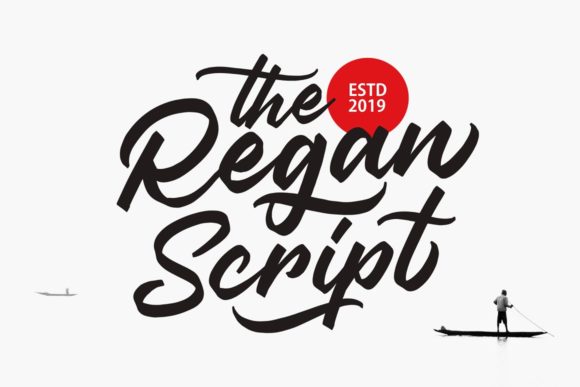
Introducing The Regan Script Font: The Epitome of Individuality and Timeless Charm
Unleash your creative flair and make a lasting impression with The Regan Script Font, a captivating and distinctive handwritten font that exudes a retro charm. Crafted with meticulous attention to detail by the experts at Colative, this font is a testament to the power of individuality and timeless elegance.
With its assertive strokes, elegant curves, and a touch of nostalgia, The Regan Script Font is a versatile masterpiece that effortlessly elevates any design project. Its wide range of applications makes it the perfect choice for a multitude of creative endeavors, from heartfelt letters and eye-catching posters to professional presentations and stylish branding.
Step into a world of endless possibilities with The Regan Script Font. Its versatility knows no bounds, allowing you to effortlessly create designs that resonate with your unique style and vision. Whether you're a seasoned designer seeking a touch of originality or a novice just starting your creative journey, this font is your gateway to a world of artistic expression.
Immerse yourself in the beauty and charm of The Regan Script Font. Its versatility and timeless appeal make it the perfect choice for a wide range of projects, including:
- Personalize your emails with a handwritten signature that reflects your authentic self.
- Bring your social media posts to life with captivating visuals that stand out from the crowd.
- Create stunning invitations, greeting cards, and announcements that leave a lasting impression.
- Design logos and branding materials that embody your brand's unique personality.
- Elevate your marketing materials with eye-catching headlines and engaging text that captivates your audience.
The Regan Script Font is more than just a collection of characters; it's a gateway to a world of creativity, individuality, and timeless beauty. Unlock your imagination and let your designs soar with this remarkable font. Experience the joy of creating something truly special, something that reflects your unique essence and leaves an indelible mark on the world.